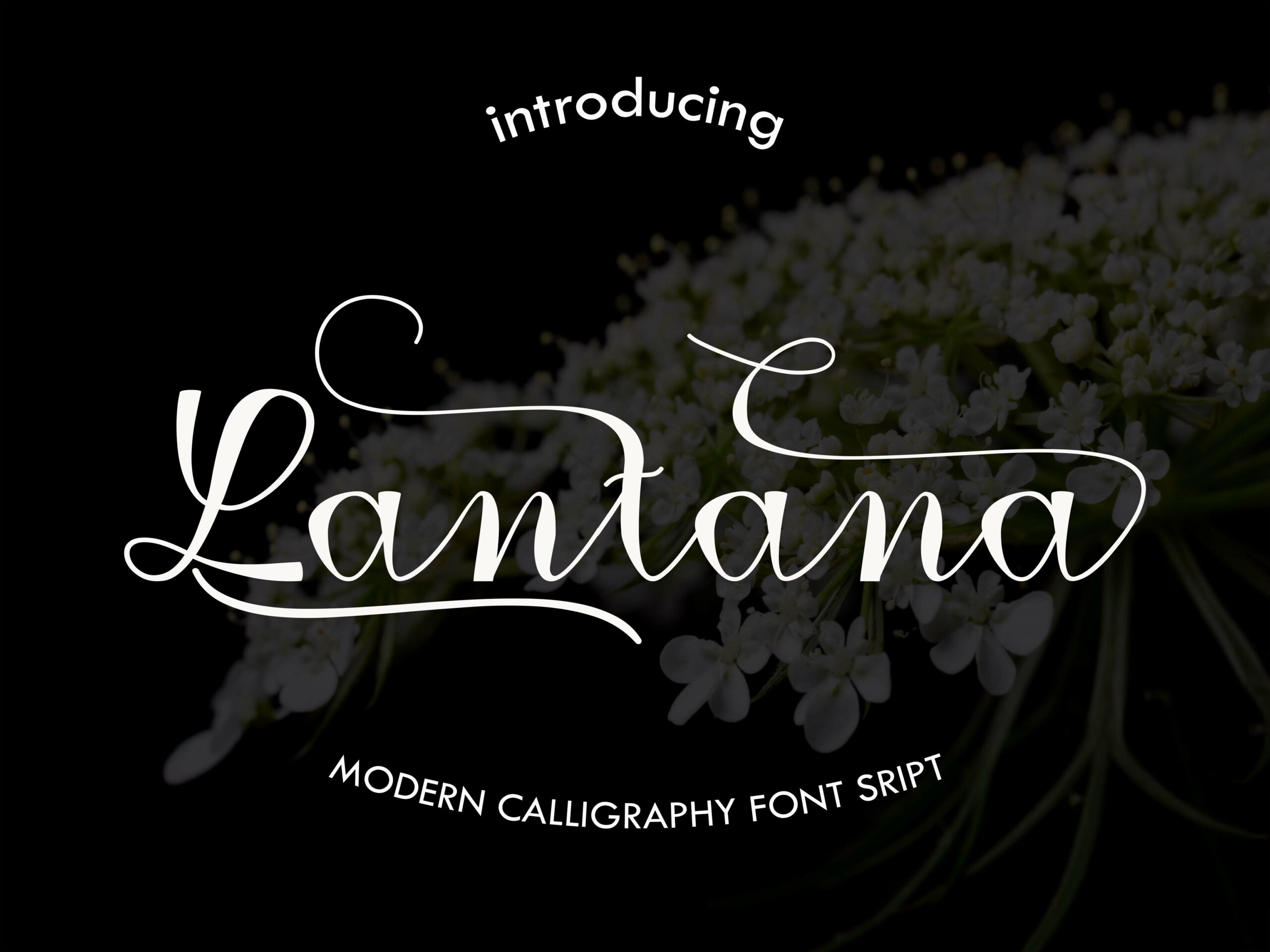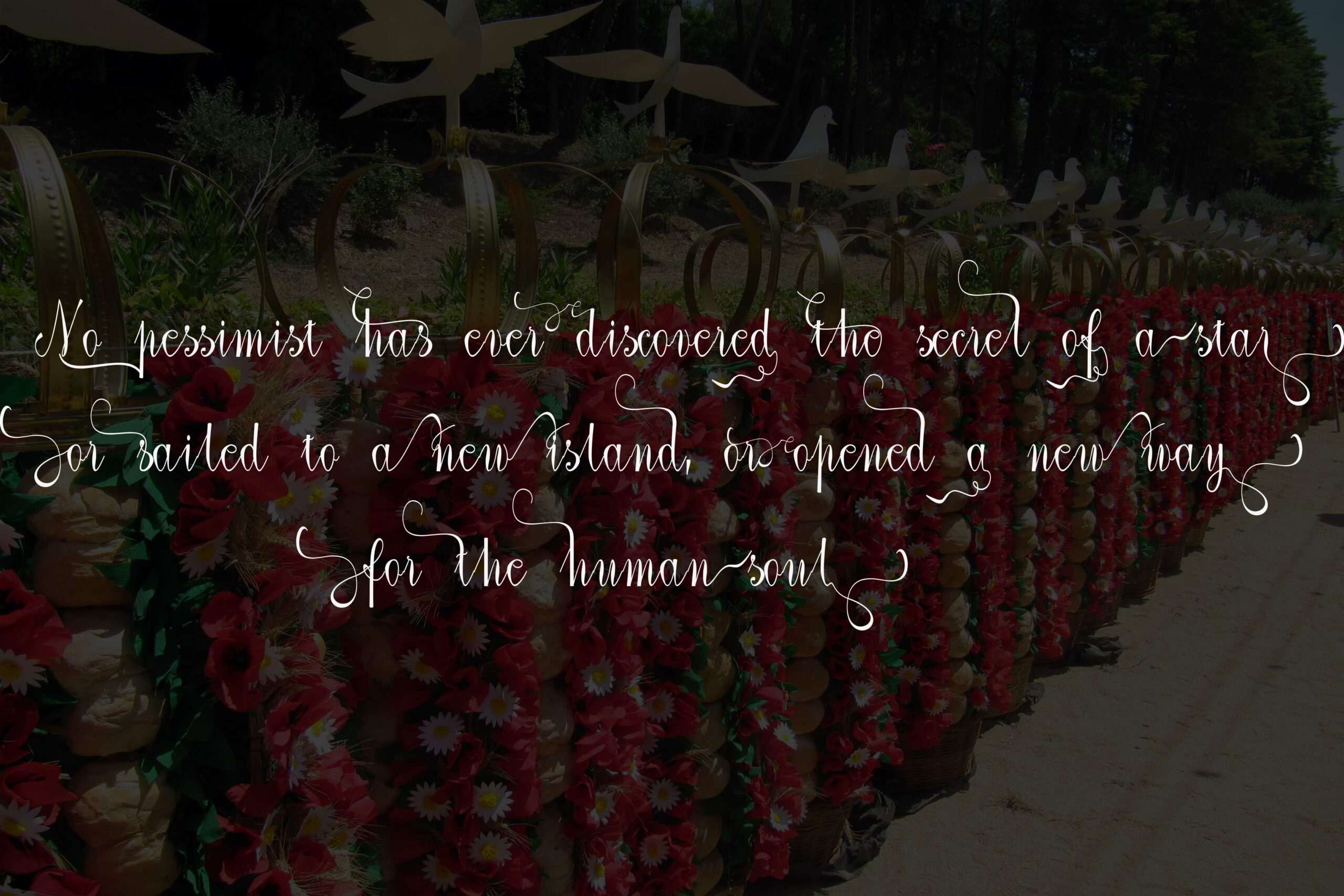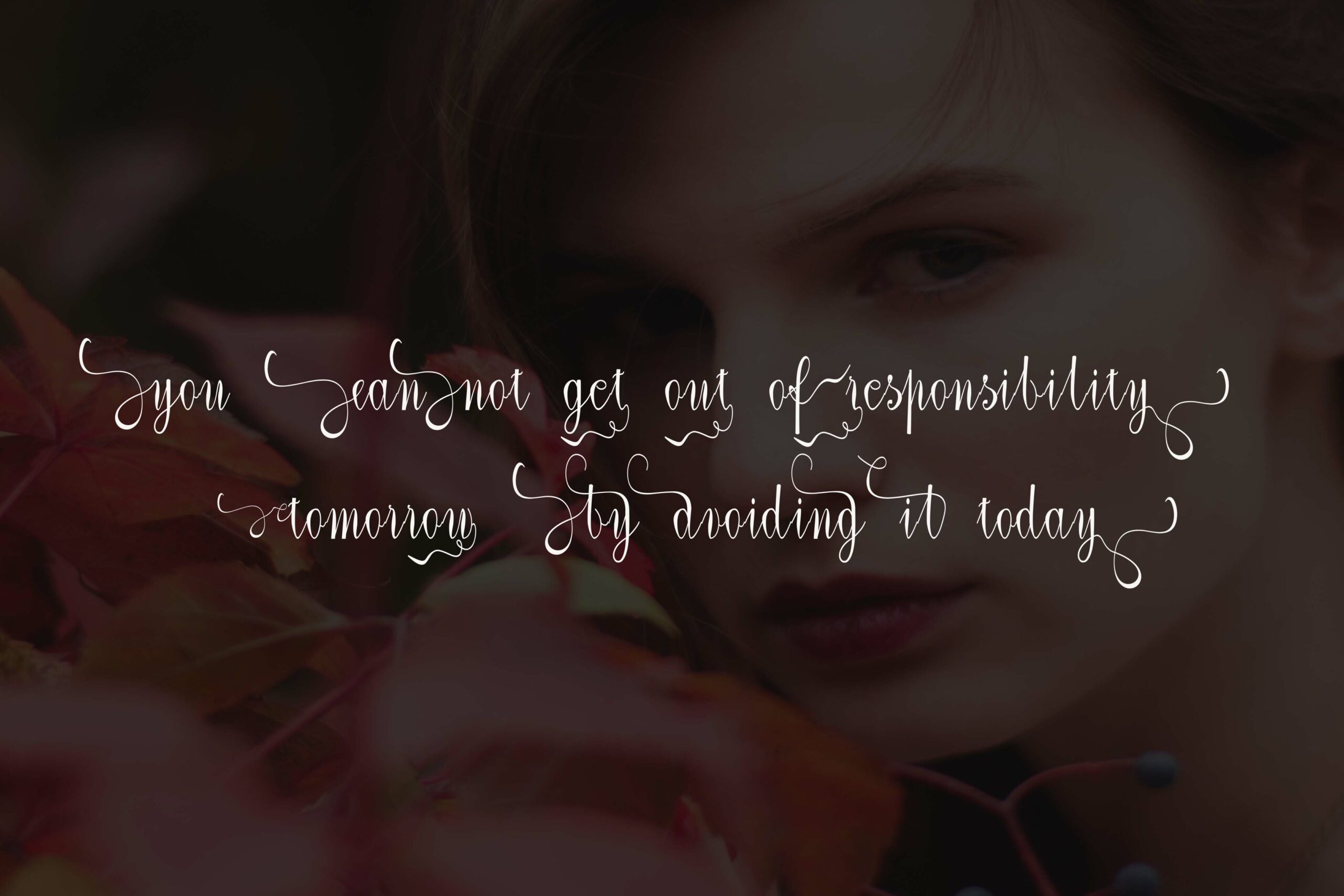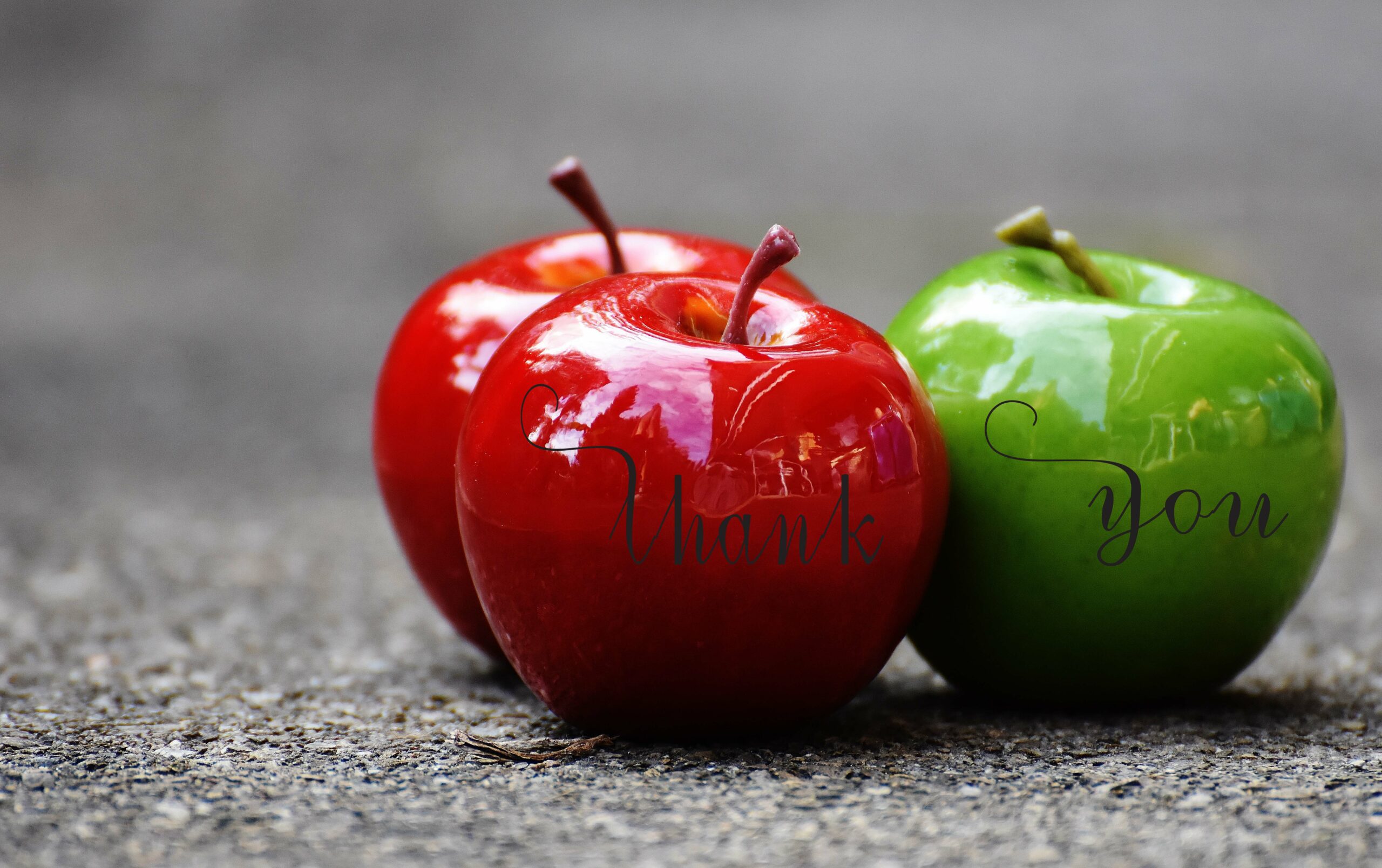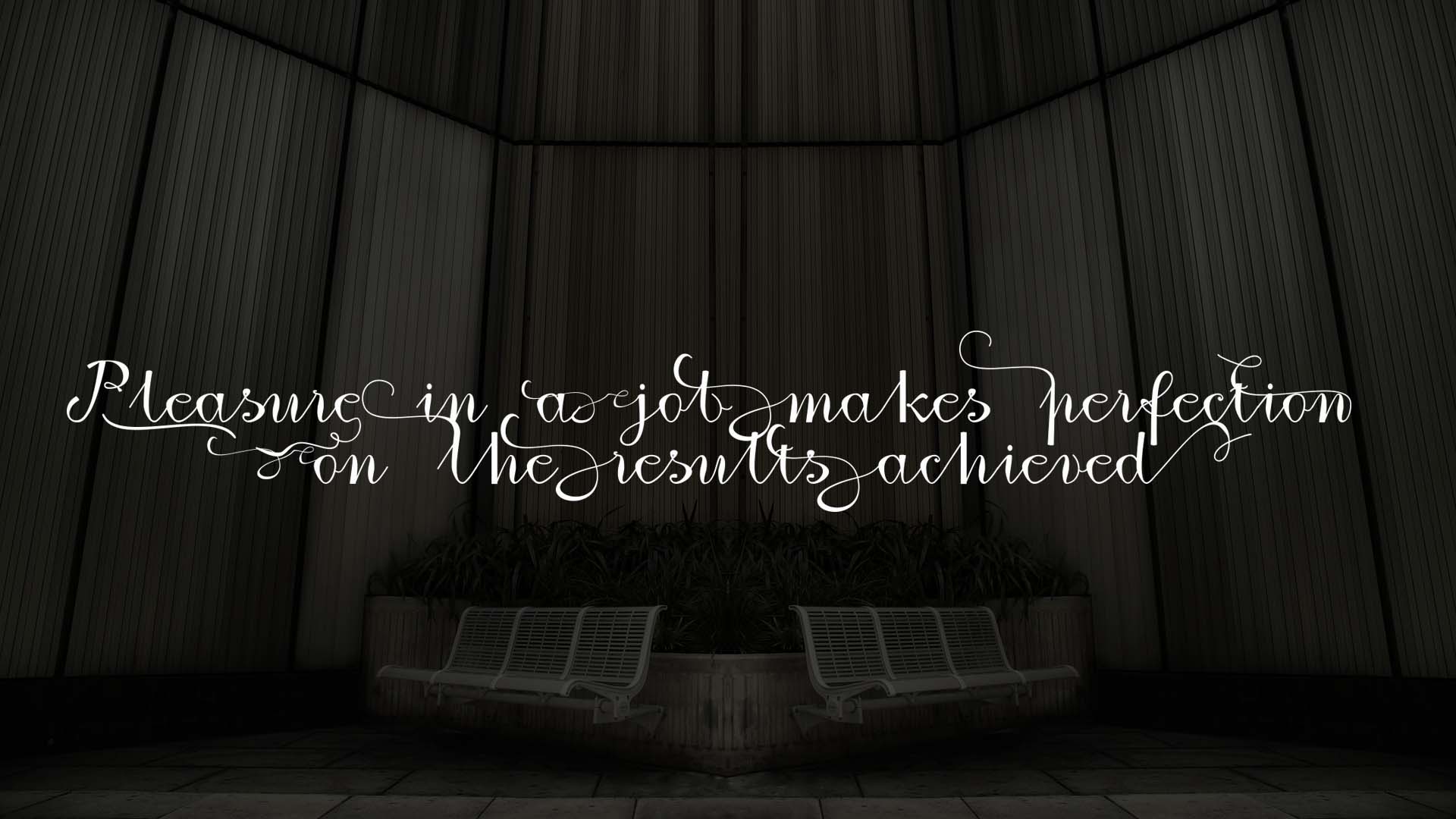
HomeScript FontsLantana Font Script Fonts Lantana Font FacebookTwitterPinterestWhatsApp Lantana Font Poster 2 Lantana Font Poster 3 Lantana Font Poster 4 Lantana Font Poster 5 About Lantana Font Lantana is a modern calligraphy font created by hand by Imun Studio. DOWNLOAD NOW People also explored Brandy Font Langit Merah Script Good Times Font Kidkids Font Light Blue Font The Reply Font Zachary Vintage Font Withdrew Font Vedo 146 0 TagsLantana Font Previous articleAmelia FontNext articleMoonttella Font LEAVE A REPLY Cancel reply Comment: Please enter your comment! Name:* Please enter your name here Email:* You have entered an incorrect email address! Please enter your email address here Website: Save my name, email, and website in this browser for the next time I comment. Personal Use Free Rafika Personal Use Free Read more about this font BD Lofi Personal Use Free Read more about this font Lightning Script Personal Use Free Read more about this font Pumpkins Candles Personal Use Free Read more about this font BLOG Using Fonts in Digital Marketing: Tips to Strengthen Your Brand Identity In the realm of digital marketing, every visual element plays a crucial role in shaping a brand's identity, and fonts are no exception. The... Best Fonts for YouTube Videos: Make Your Thumbnails Stand Out The 10 Best Handwriting Fonts to Add Personality to Your Designs Where to Buy American Fonts Online in 2024